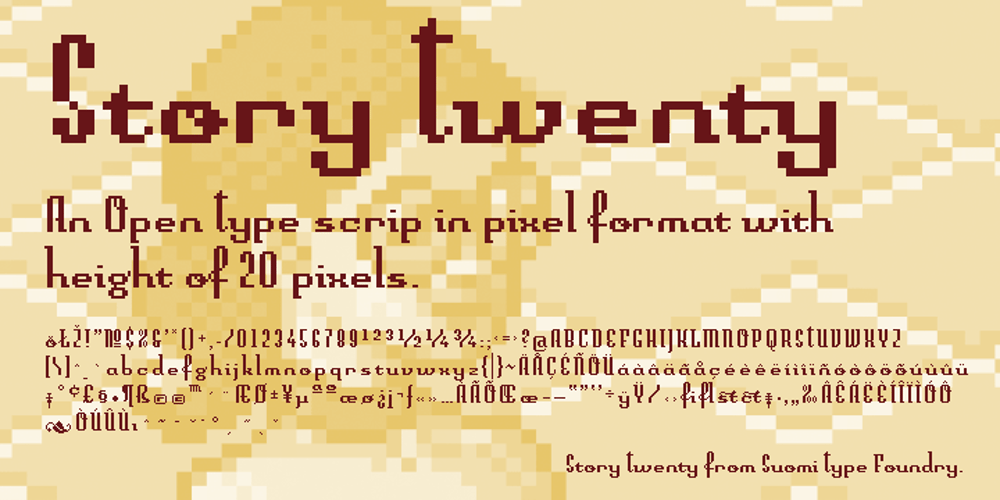
Story Font Family was designed by Tomi Haaparanta and published by Suomi. Story contains 1 styles and family package options. Story font is an experiment to convert the script-style calligraphy into bitmap format. Made alongside Tale fonts, with different design.